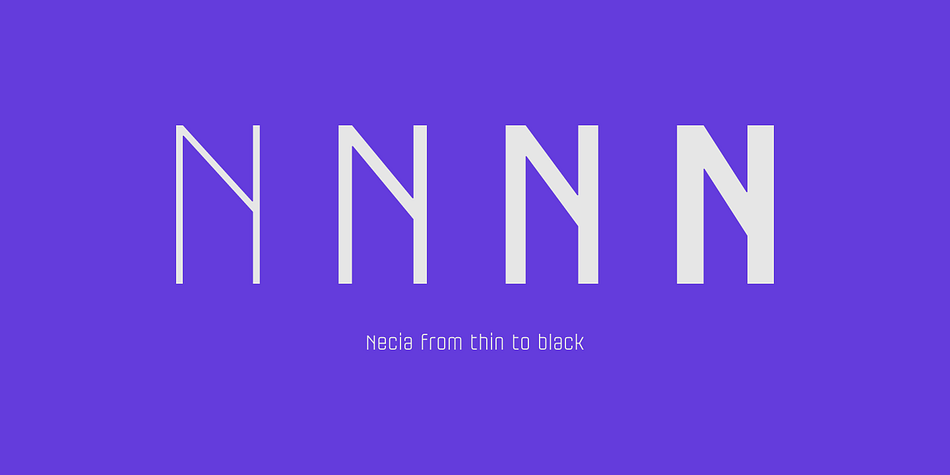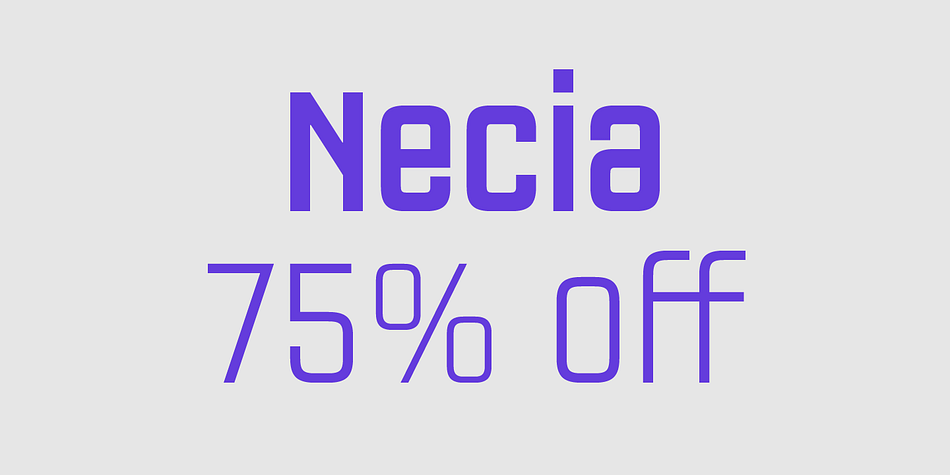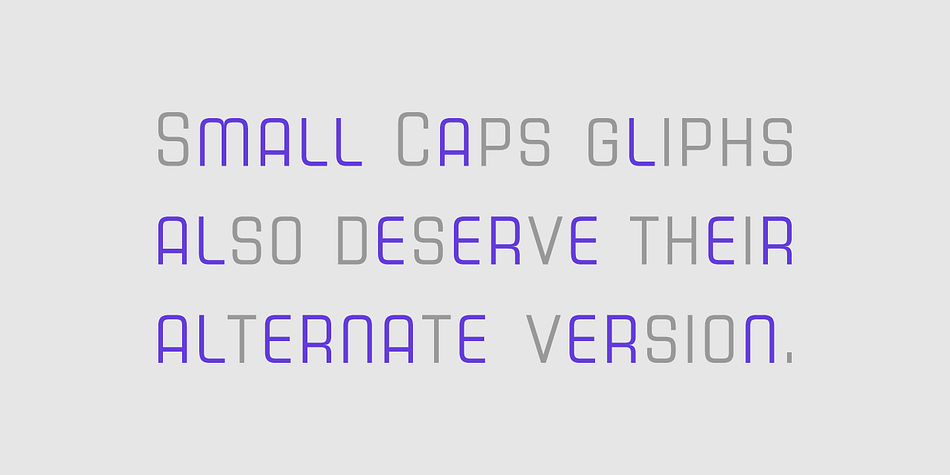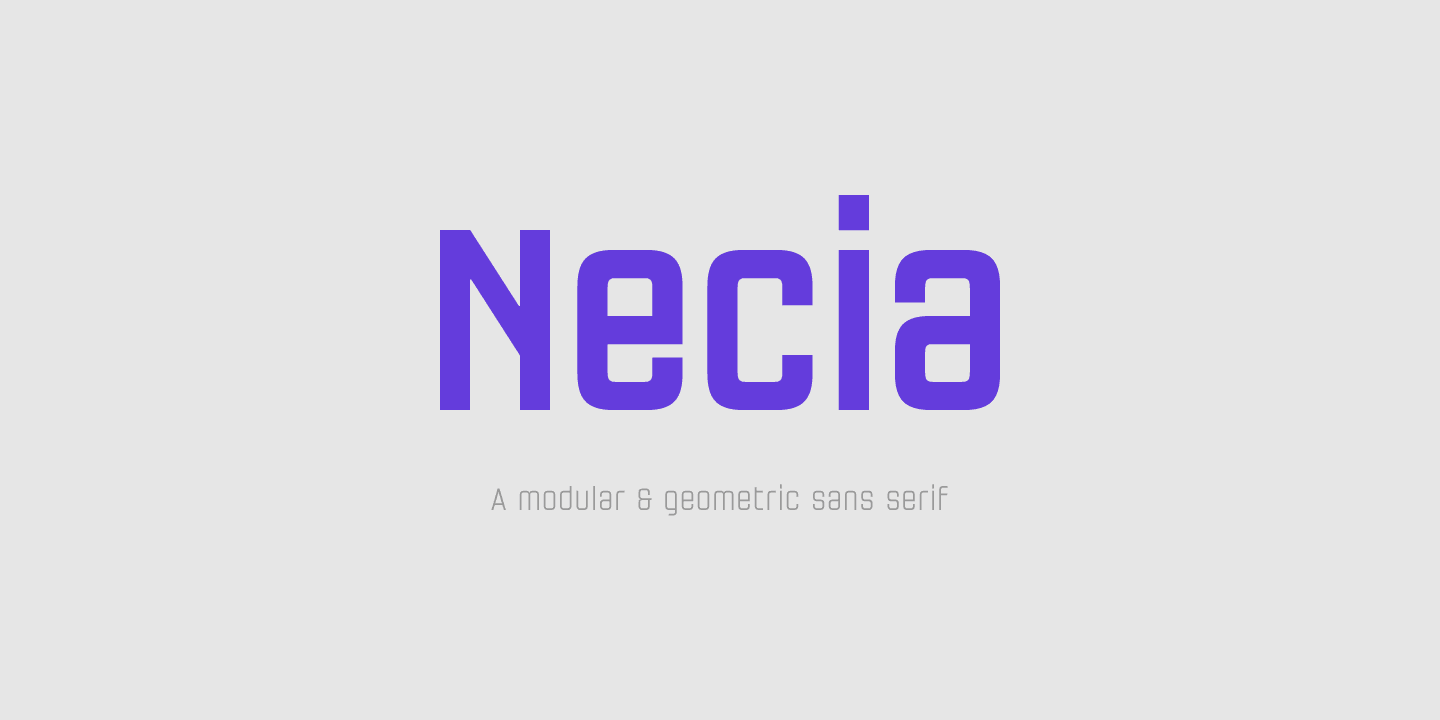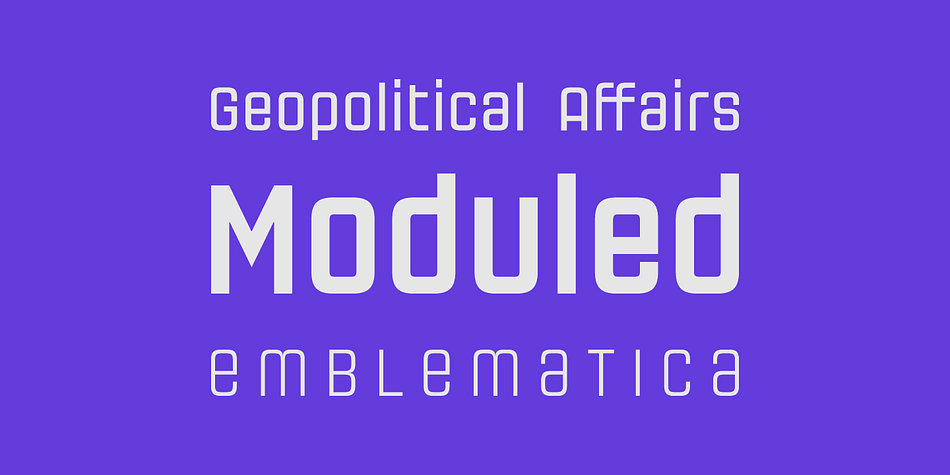
Designed by Pablo Balcells, Necia is a display sans font family. This typeface has eight styles and was published by Graviton.
Necia font family has been designed for Graviton Font Foundry by Pablo Balcells in 2014. It is a modular, geometric and slightly condensed typeface which has been conceived to be primarily a display typeface, but given its clarity it can also be used for composing short and intermediate length texts.
Necia consists of 4 weights. Each contains small caps and several alternate characters as well as a separate unicase font.